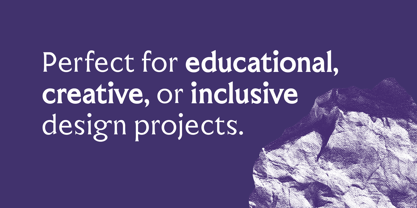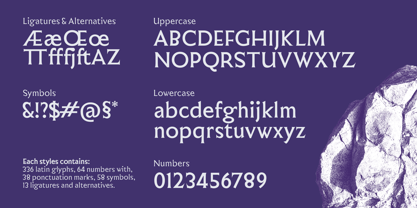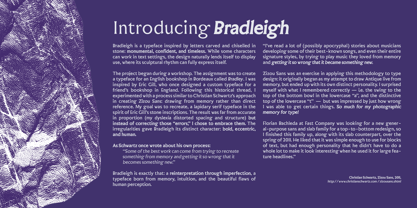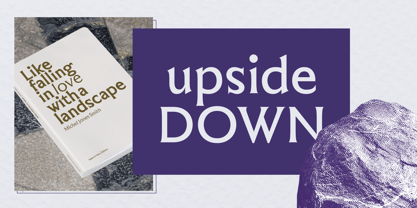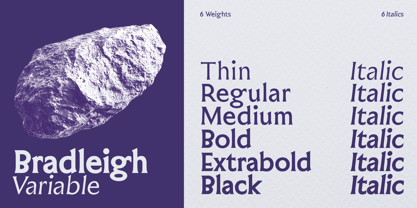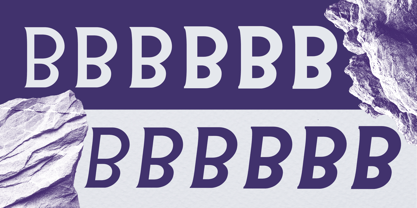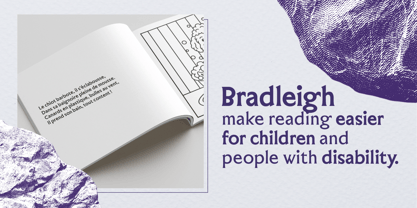
Bradleigh
The Bradleigh Font Family was designed by Marie Verdenal and published by Make It Type. Bradleigh contains 1 styles. More about this family
Bradleigh Variable — a monument with a human heartbeat. Bradleigh is a variable serif inspired by the artistry of letters carved in stone — monumental, confident, and timeless. It carries two axes, Weight and Italic, allowing the design to shift from delicate engraving to bold inscription while keeping its sculptural rhythm intact. Originally conceived for a bookshop in Bordeaux, Bradleigh draws from the tradition of Eric Gill’s lapidary inscriptions, yet reinterprets it through the filter of memory and imperfection. The designer deliberately embraced the distortions created by dyslexia — irregular spacing, asymmetric rhythm — turning them into features rather than flaws. The result is a typeface that feels both crafted and alive: bold, eccentric, and deeply human. Bradleigh blends warmth and clarity, with open shapes and generous forms that improve readability for children and readers with dyslexia. Its subtle inconsistencies enhance legibility while giving it a distinctive voice. Use Bradleigh for editorial, educational, or branding projects that value authenticity and emotion over sterile precision — when you want your typography to look carved, not printed.